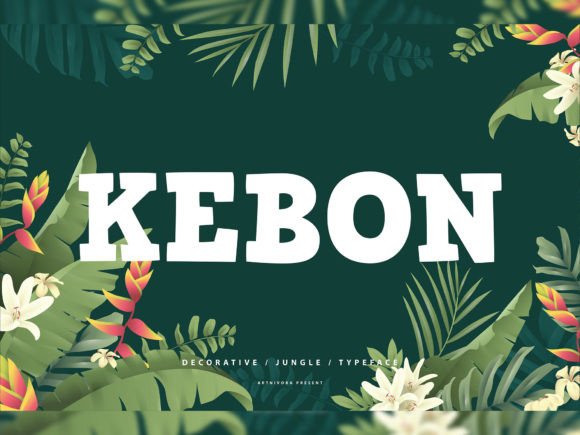
Introducing Kebon Font: A Typographical Symphony of Elegance and Charm
In the realm of digital artistry, where words dance across screens, there lies a font that captivates hearts and imaginations alike: Kebon Font. A masterfully crafted display font, Kebon is not merely a collection of letters; it is an orchestra of visual allure, a symphony of typographical elegance. Step into the world of Kebon, and let your creative spirit soar.
With its playful and vibrant character, Kebon Font breathes life into your digital creations. Its carefully designed curves and strokes exude a sense of joy and exuberance, making it the perfect choice for adding a touch of whimsy to your designs. Let Kebon Font dance across your greeting cards, spreading happiness and cheer with every word.
But Kebon Font's versatility extends far beyond the realm of lighthearted play. Its inherent strength and boldness lend it an air of authority and sophistication, making it ideal for headlines, posters, and branding projects. Whether you seek to capture attention or convey a message of power and confidence, Kebon Font stands ready to amplify your vision.
The creative possibilities with Kebon Font are boundless. Its playful charm enlivens logos and branding, while its bold presence commands attention in advertising and marketing materials. Unleash your imagination and explore the myriad ways in which Kebon Font can transform your designs into masterpieces.